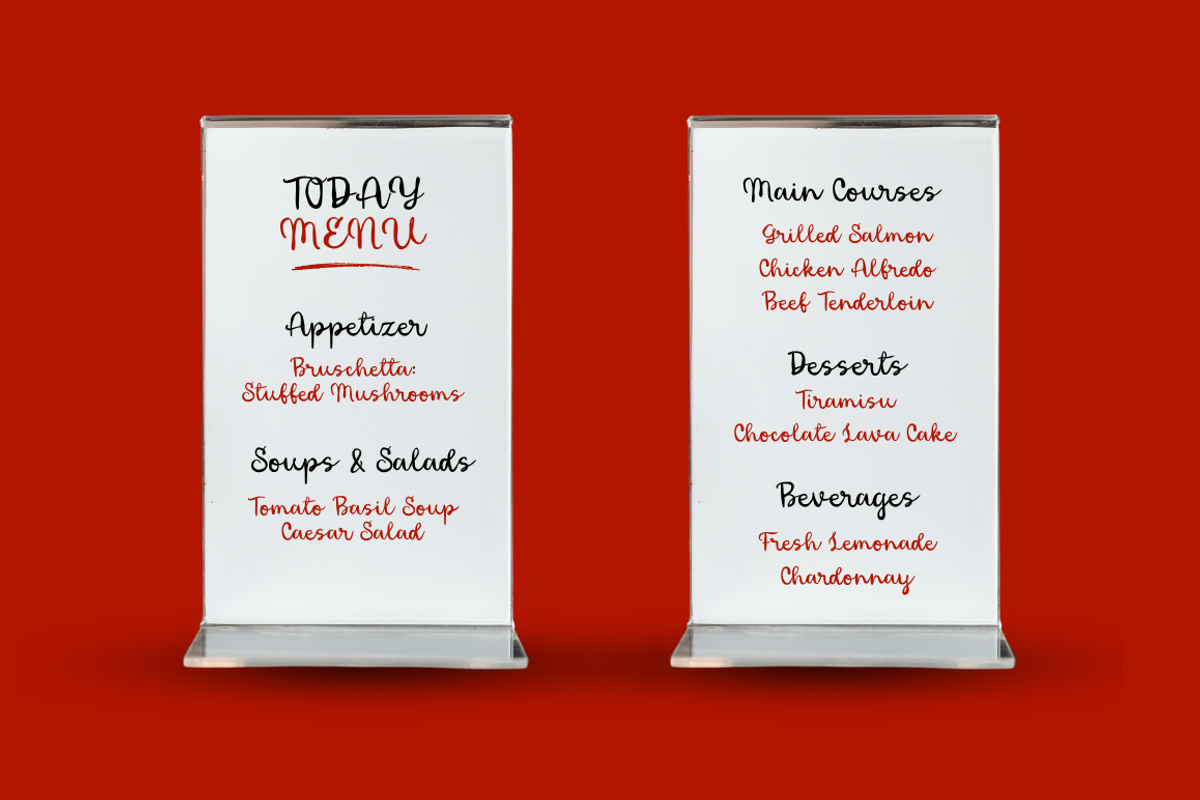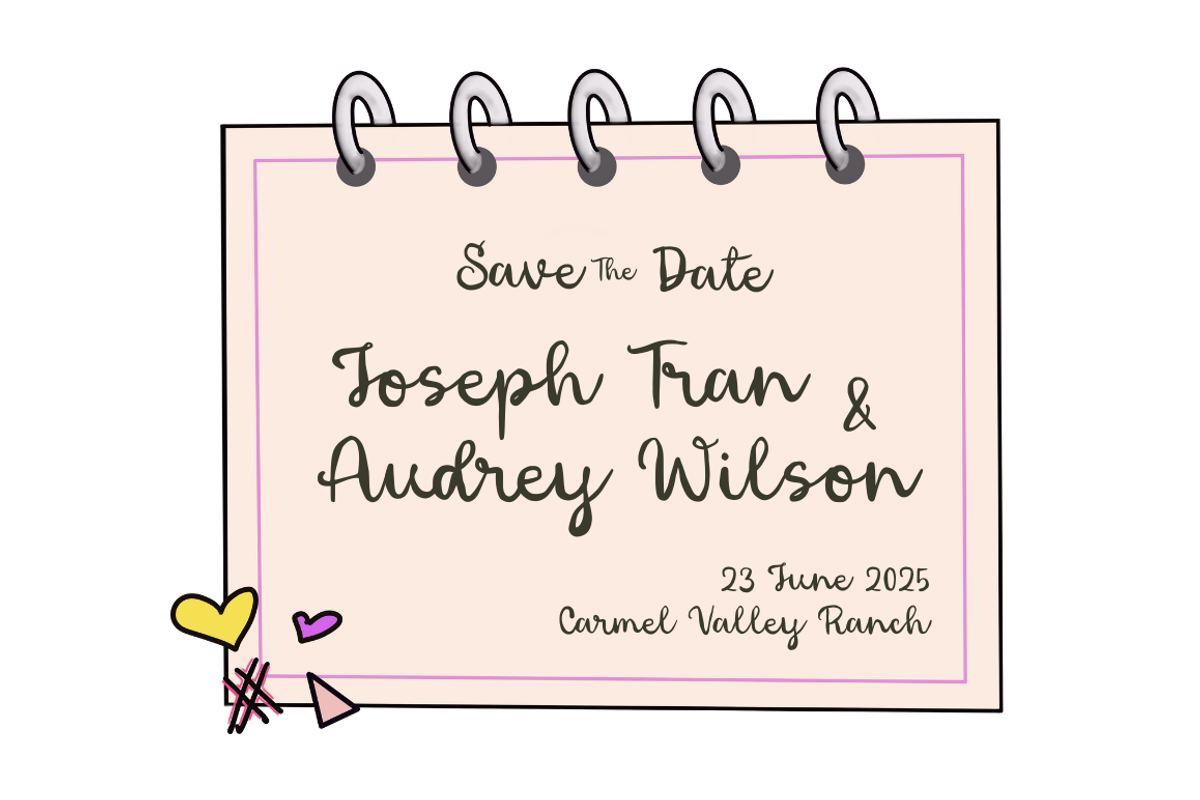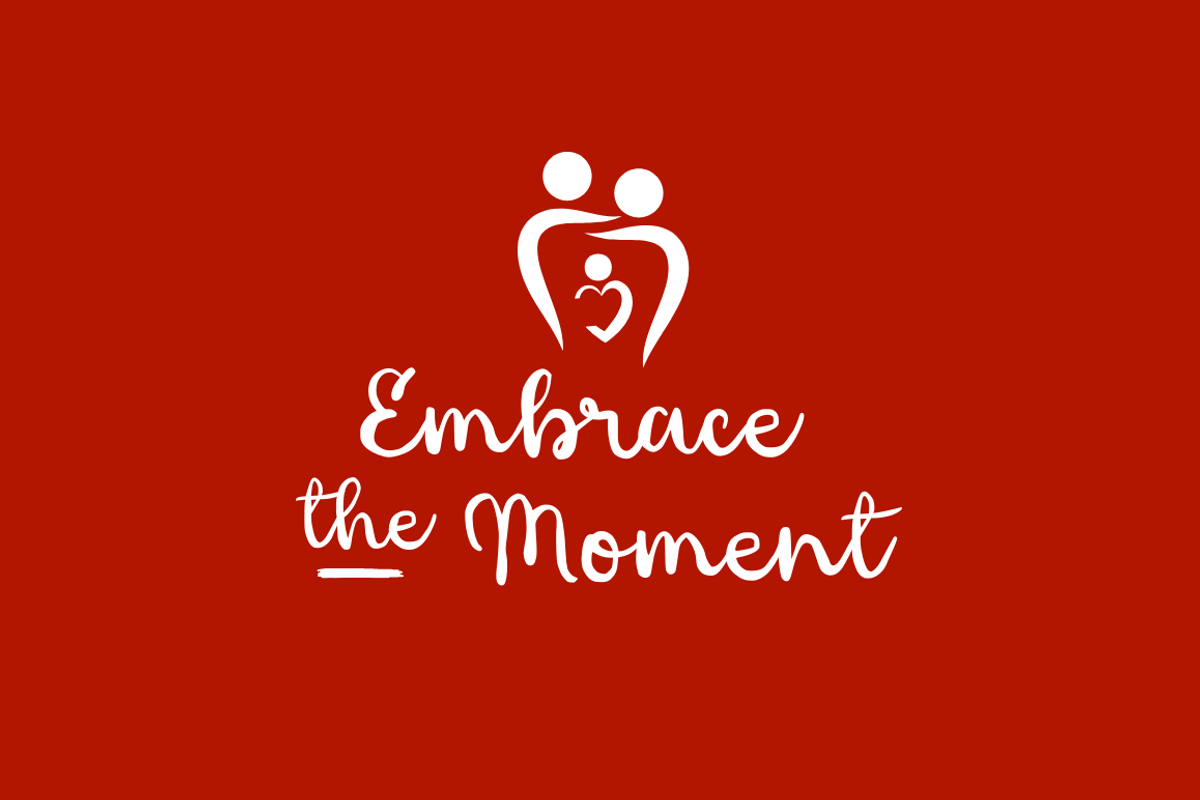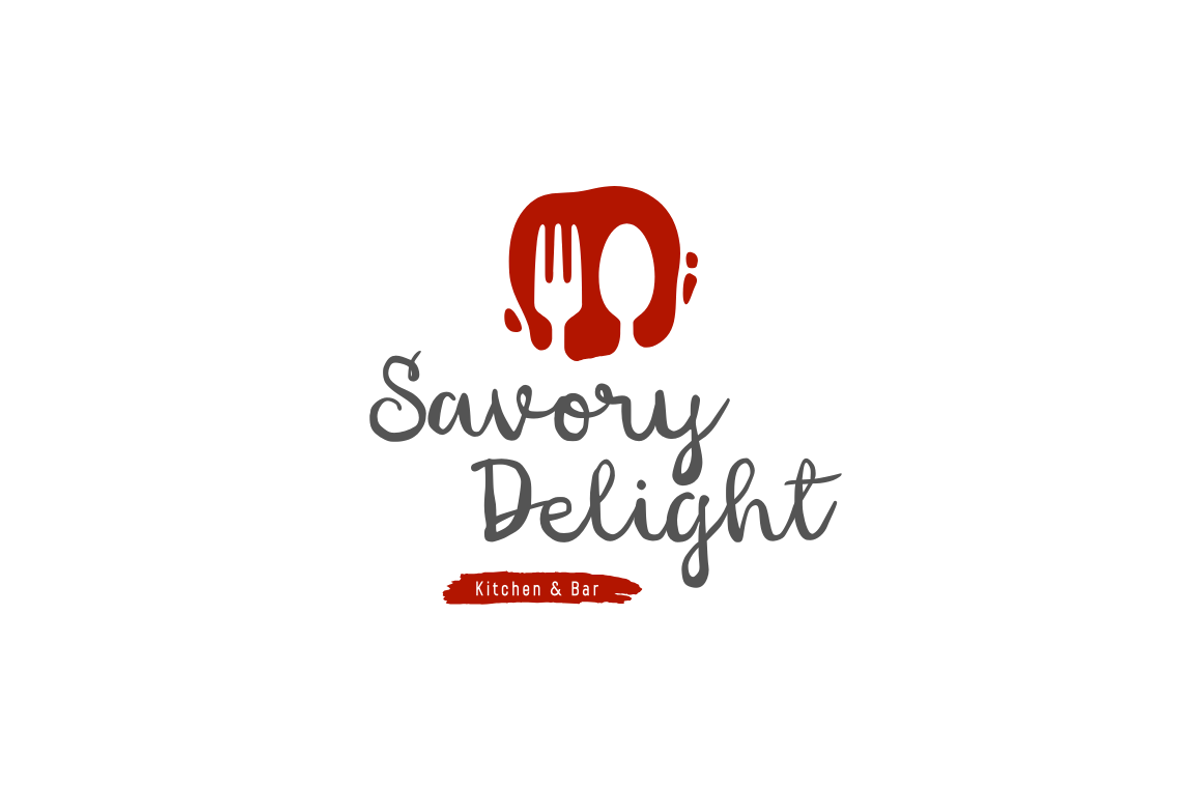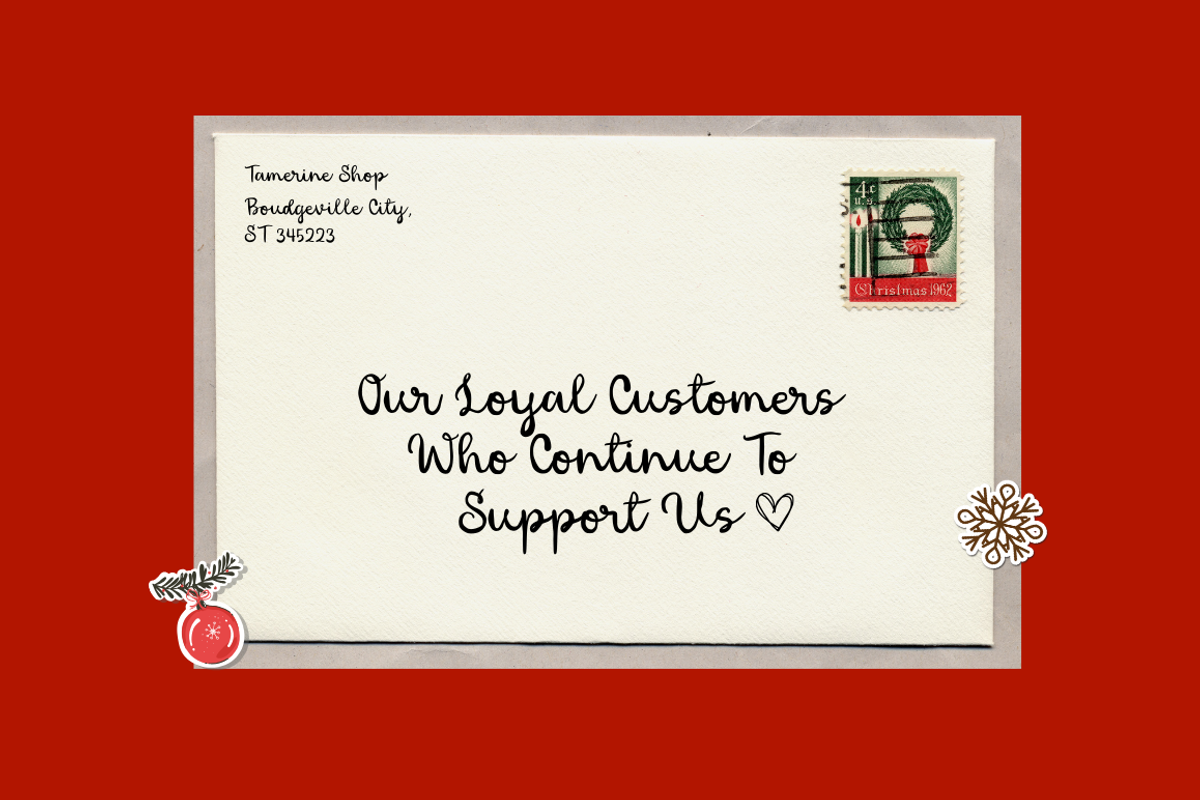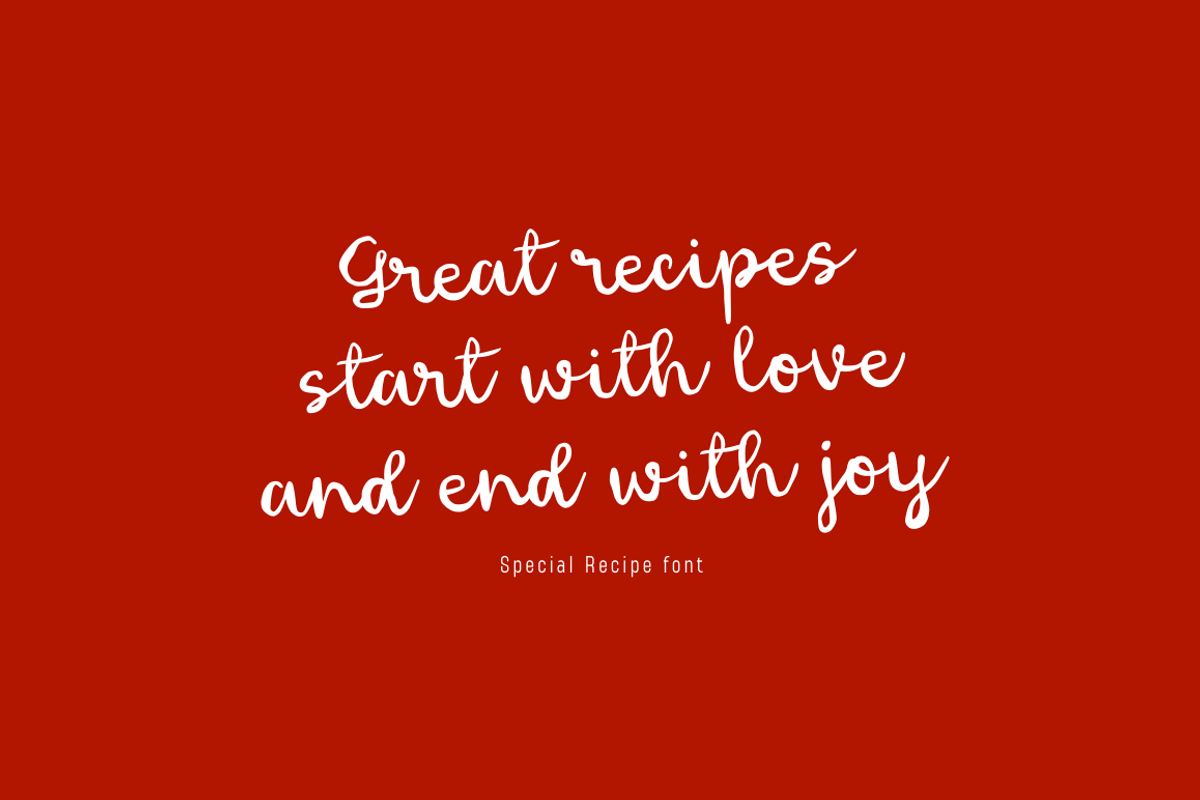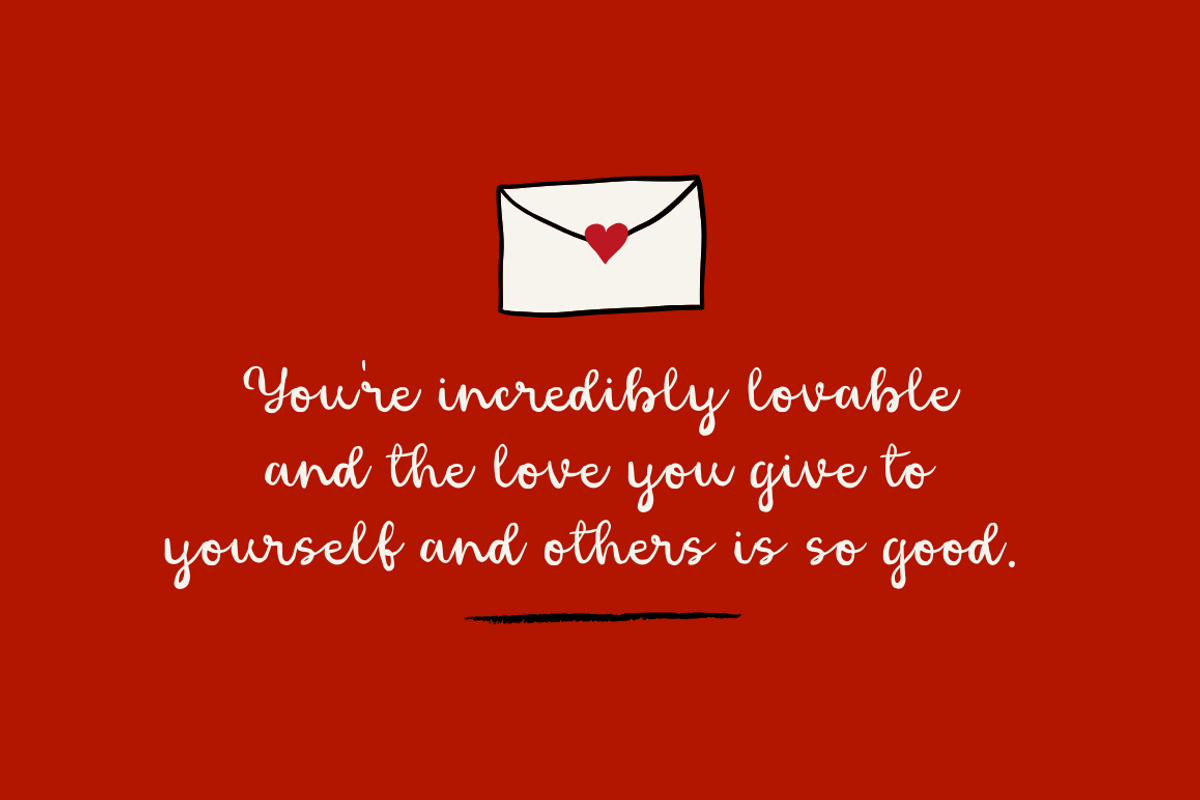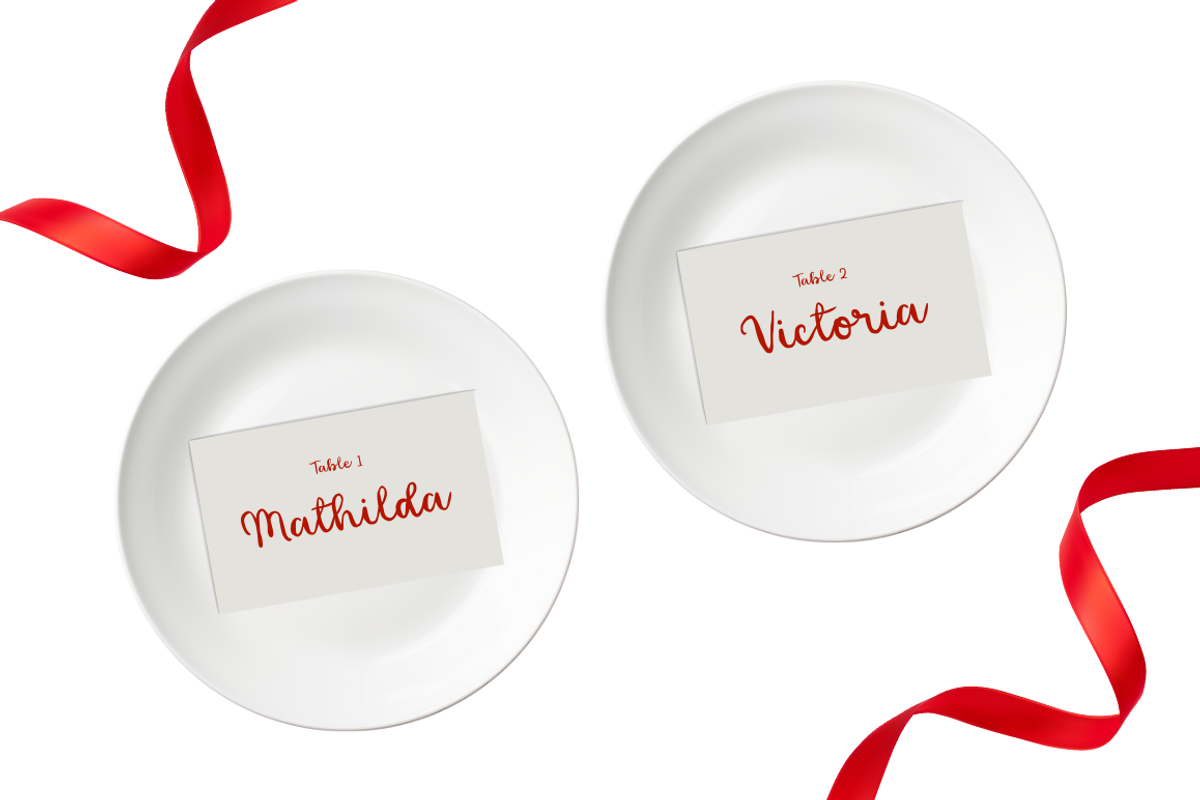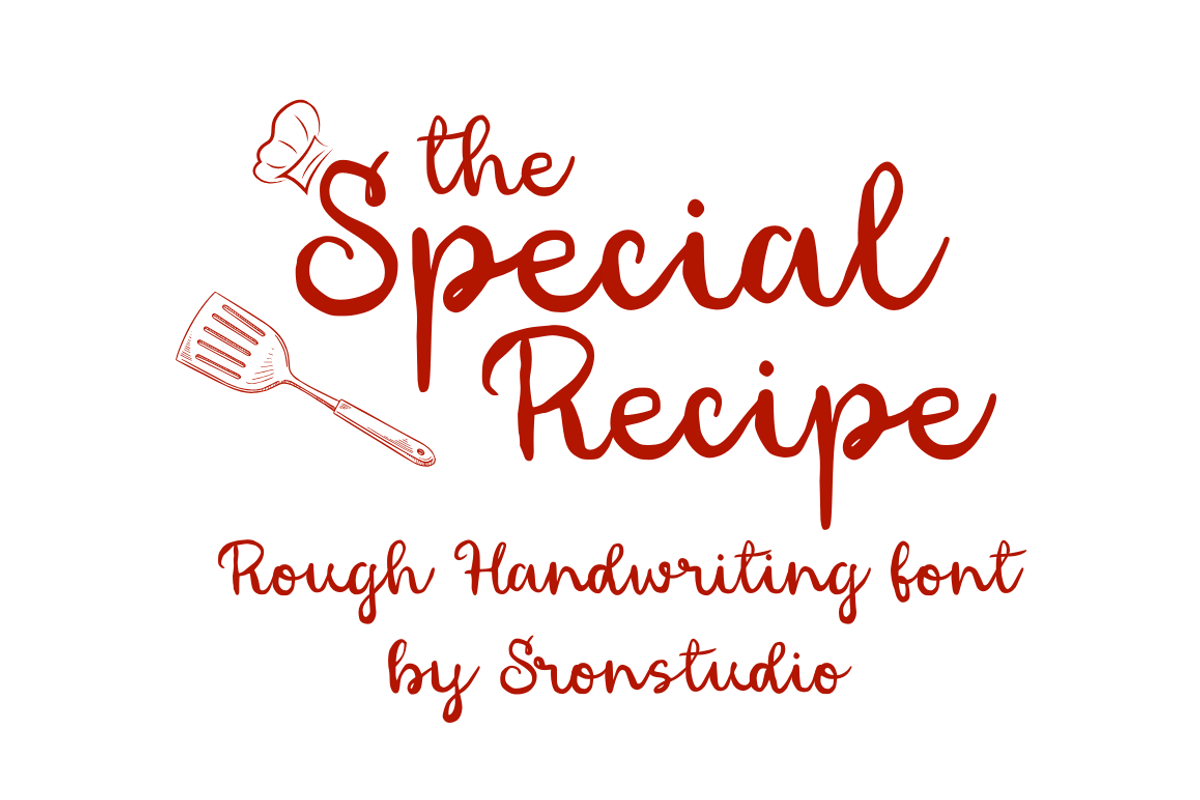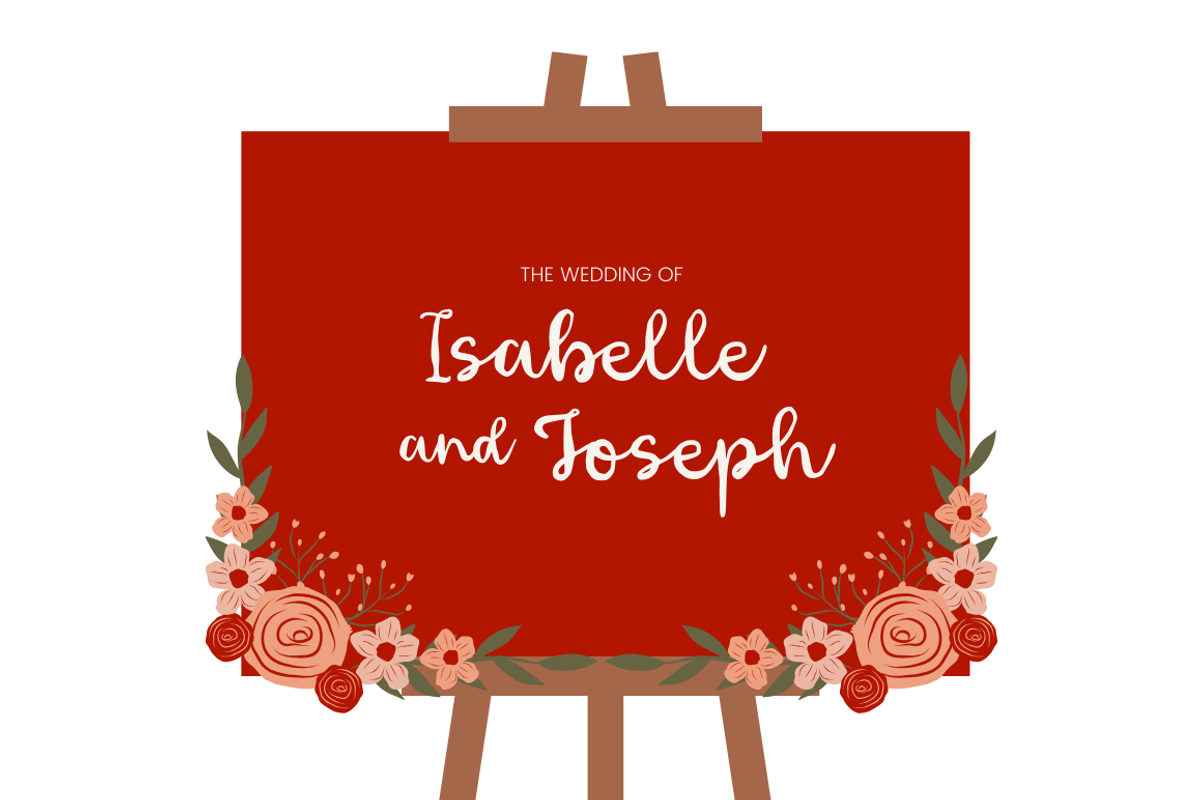
Special Recipe - Handwriting Font
Introducing "Special Recipe," a rough handwriting font that adds a unique and personal touch to your designs. With its textured strokes and organic feel, this font captures the essence of hand-crafted lettering. Perfect for projects that need an authentic, raw, and creative vibe, "Special Recipe" is ideal for logos, packaging, quotes, and more. Bring your designs to life with the distinctive charm of "Special Recipe."